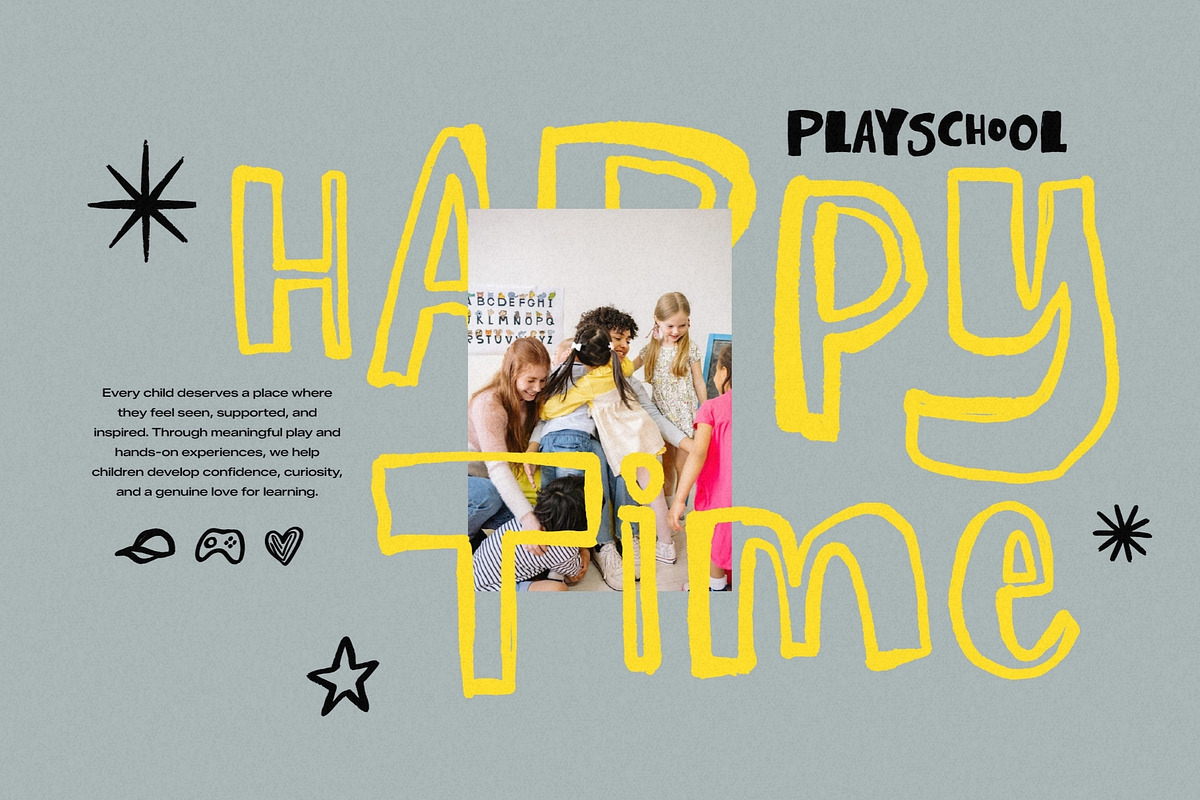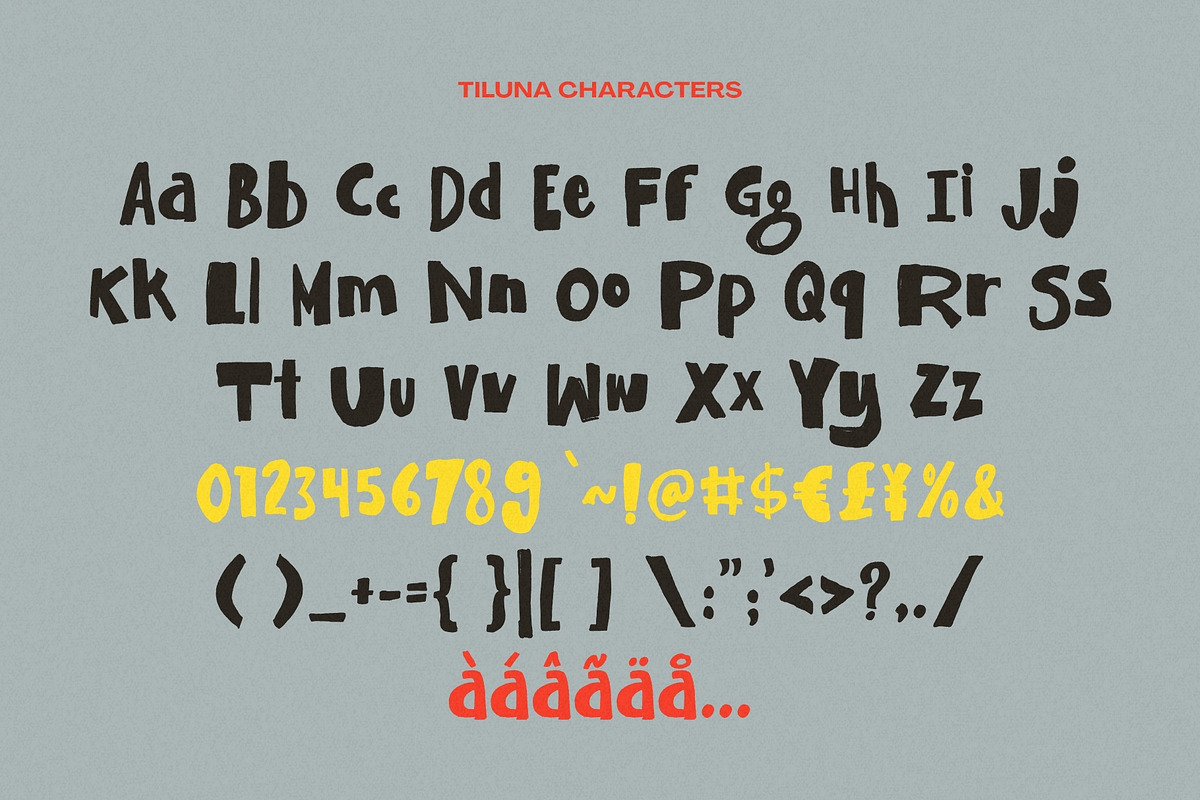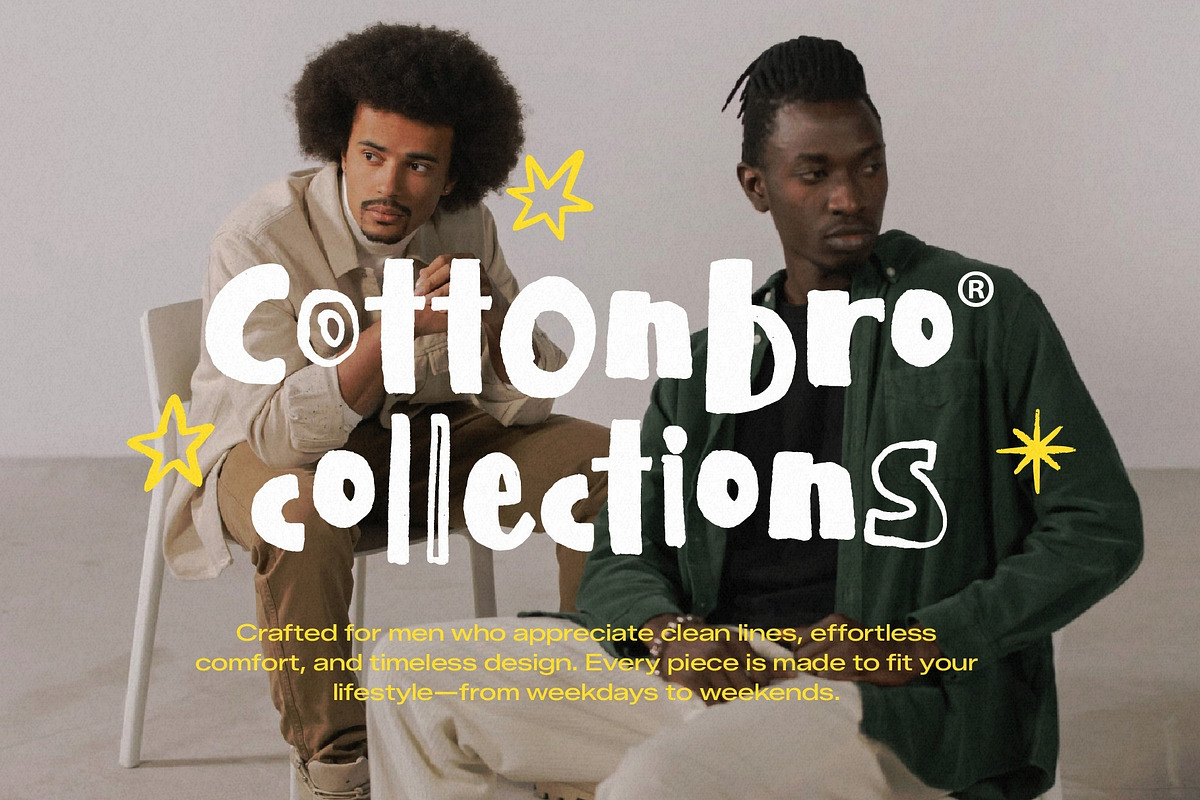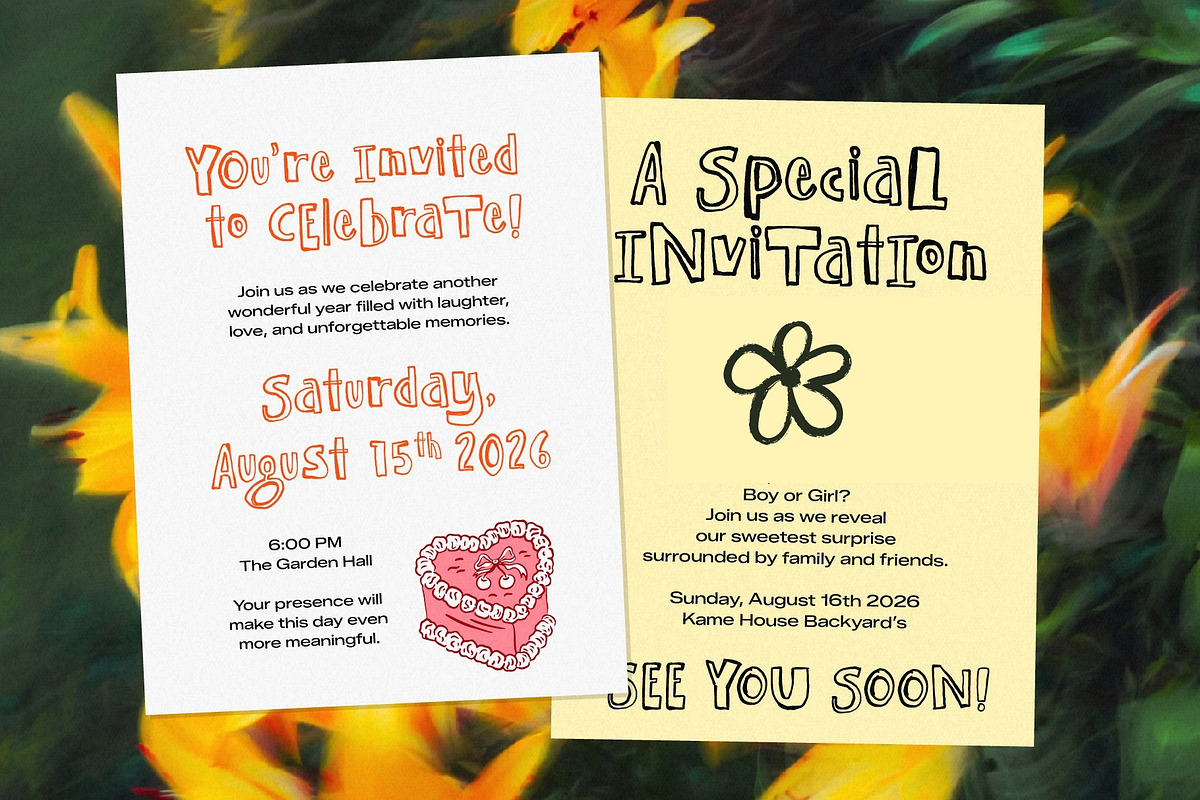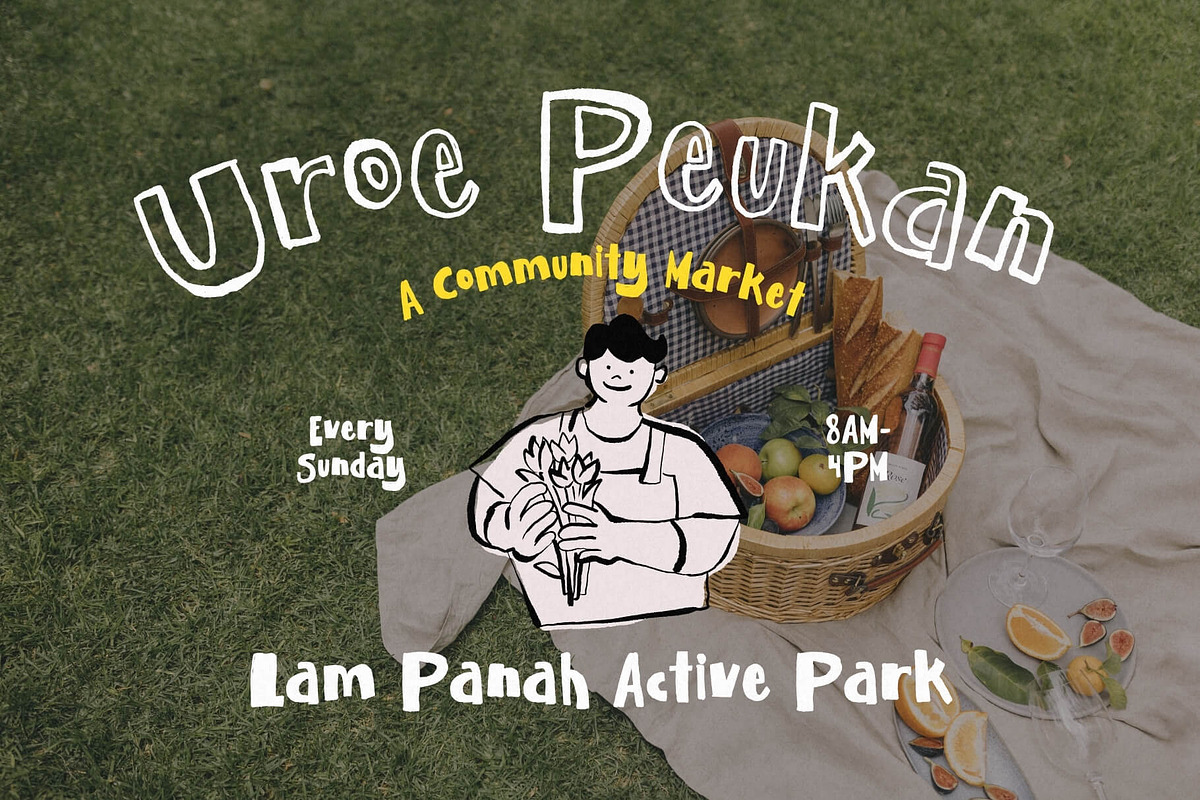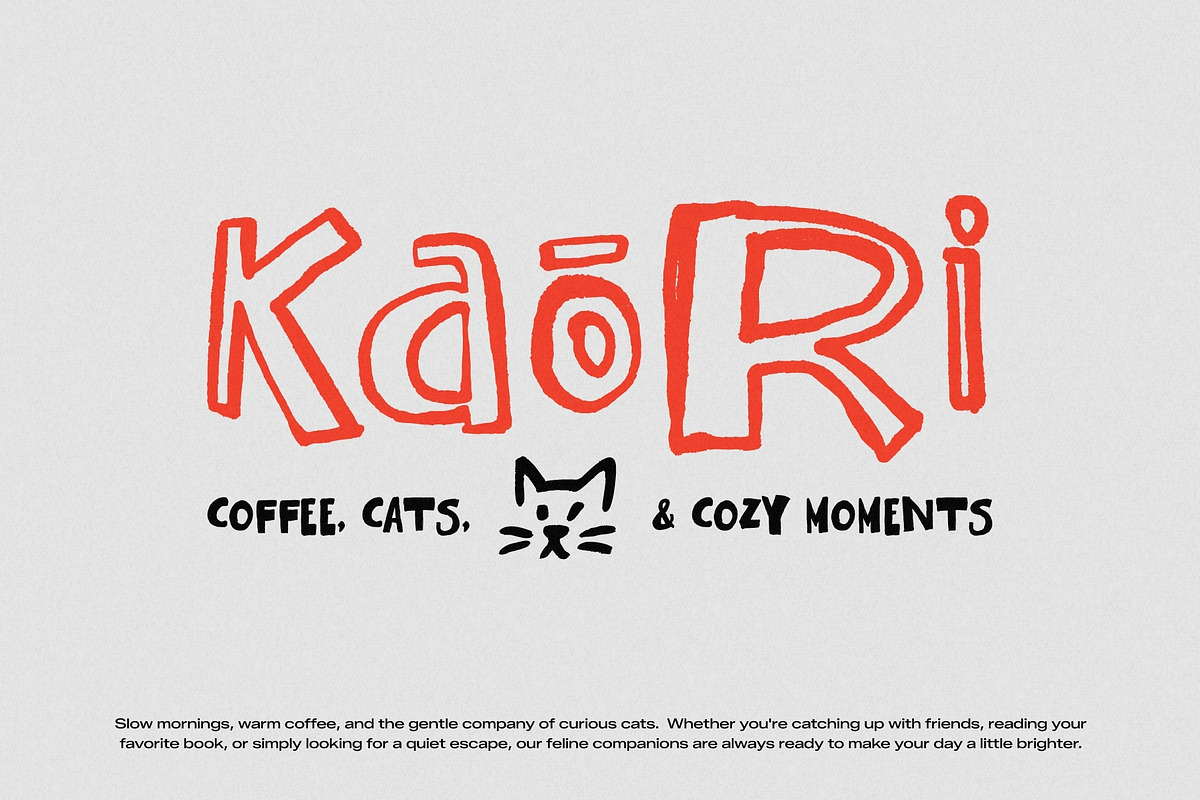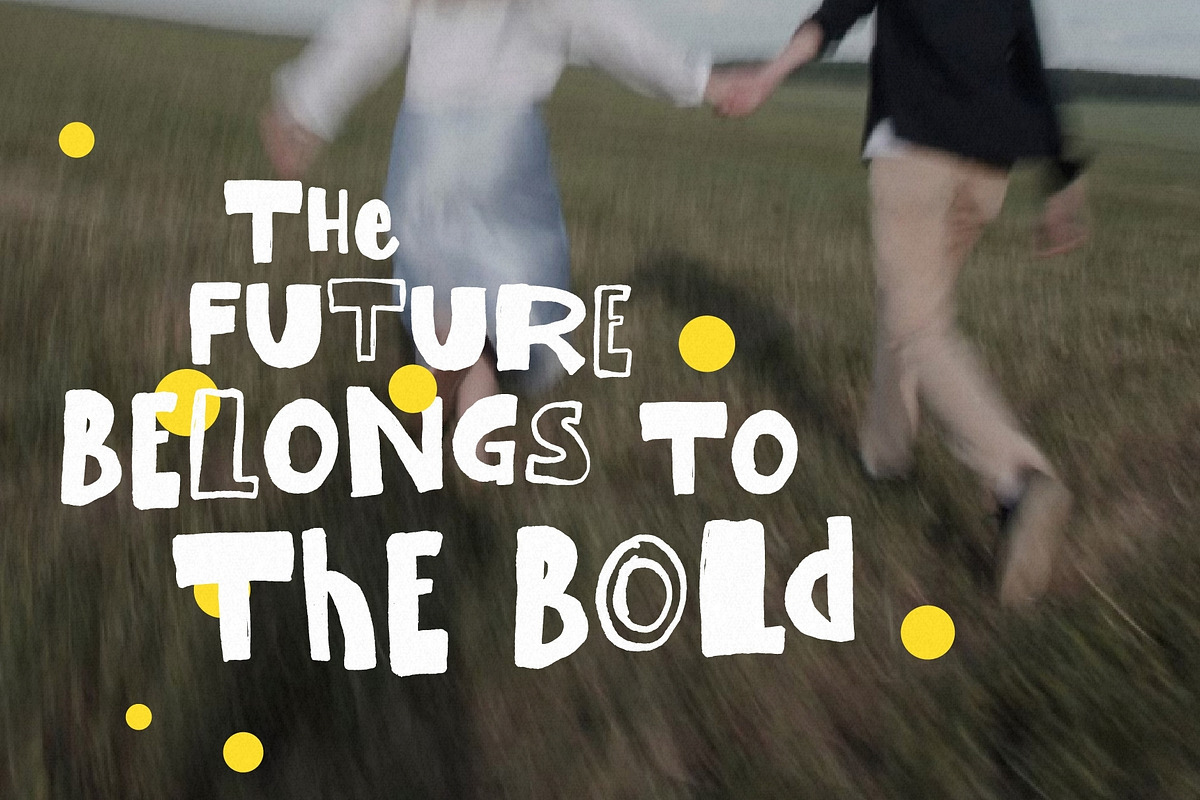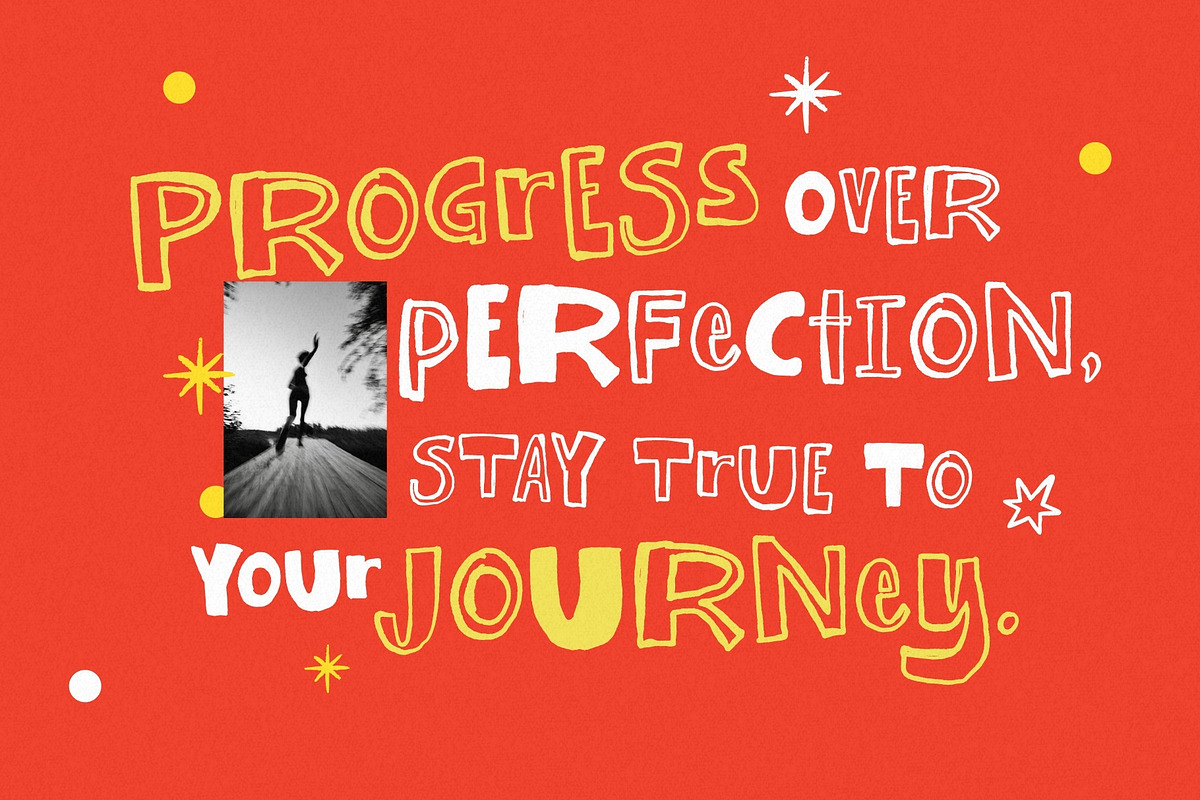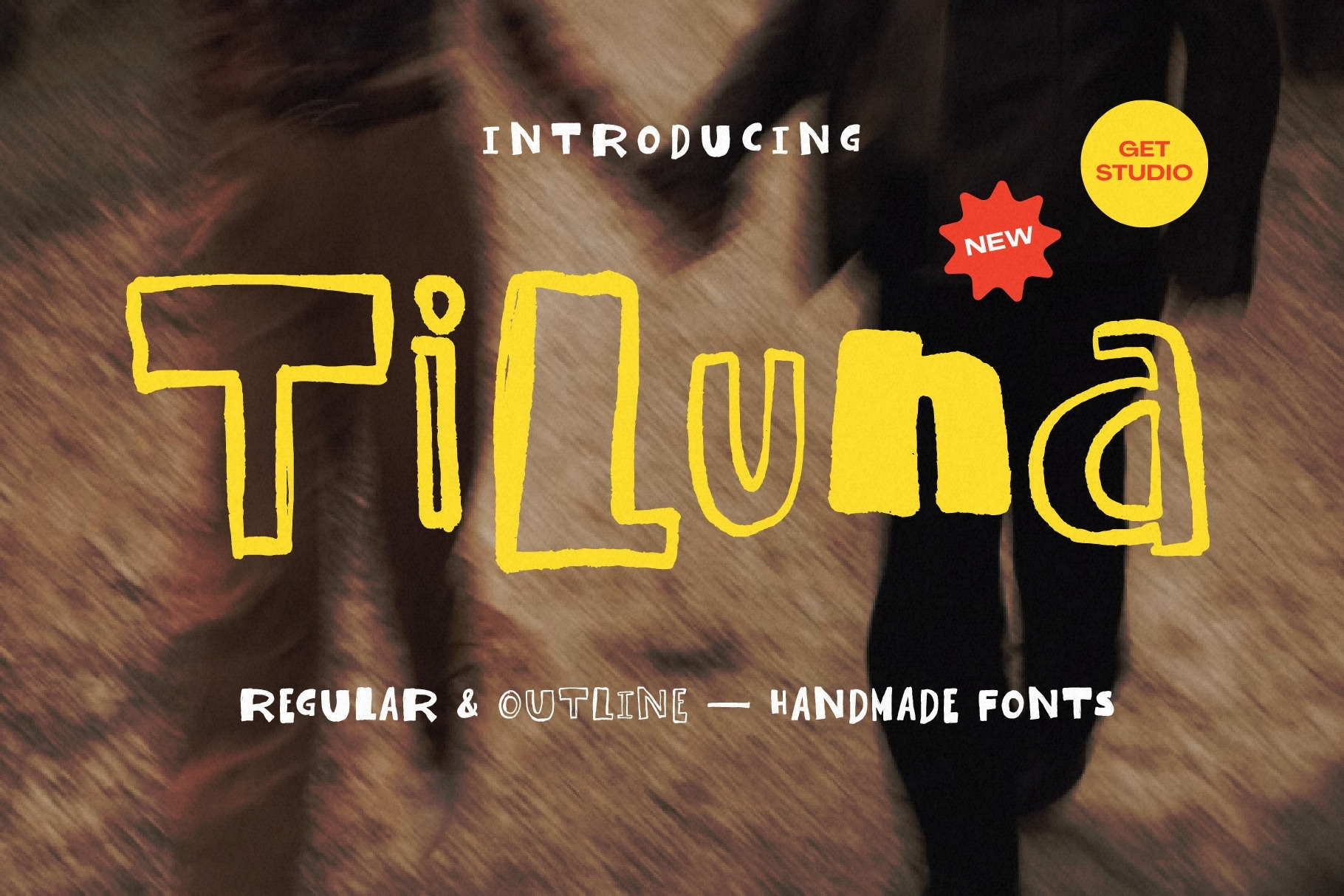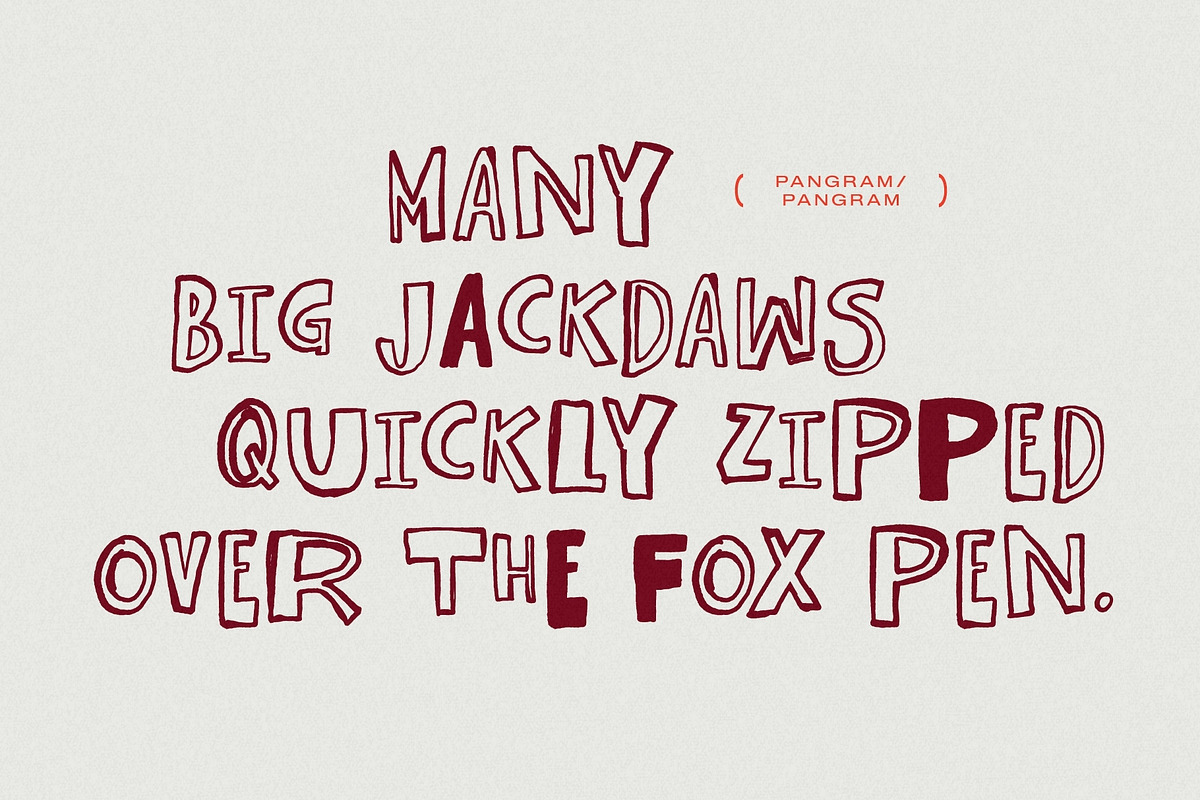
Tiluna – Handmade Display Font
Tiluna is a playful handmade display font that celebrates creativity, imperfection, and personality. With its quirky letterforms, organic texture, and bold handcrafted feel, Tiluna brings warmth and charm to every design, making every word feel lively and memorable.
Perfect for posters, children's books, branding, packaging, social media, merchandise, and creative projects, Tiluna comes in Regular & Outline styles, giving you the freedom to mix, layer, and create eye-catching typography with an authentic handmade touch.